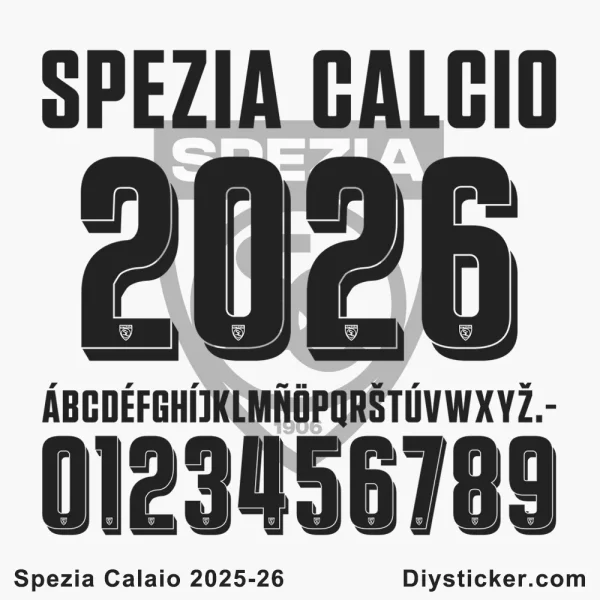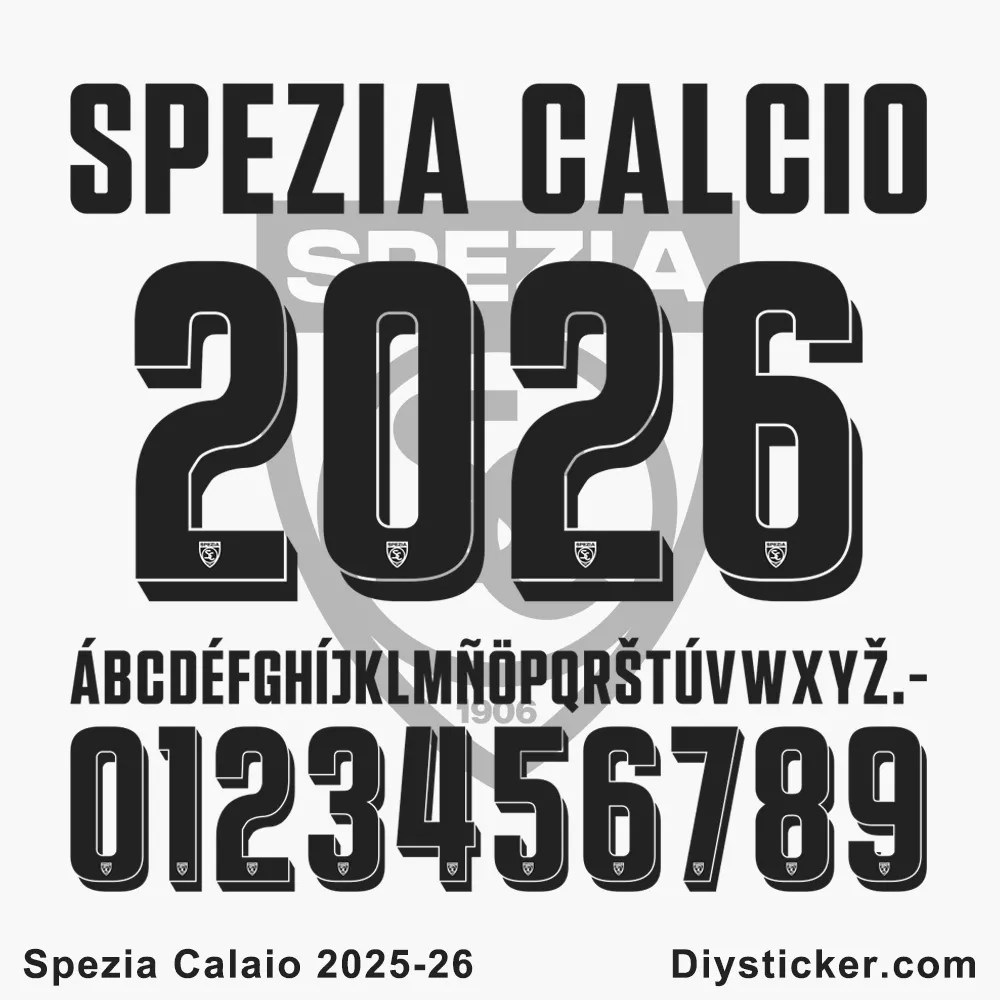
Spezia Calcio 2025-26 Font Download
Downloads official Spezia Calcio 2025-26 Font. This professionally crafted typeface replicates the club’s distinctive lettering, perfect for jerseys, fan merchandise, and digital content supporting I Aquilotti.